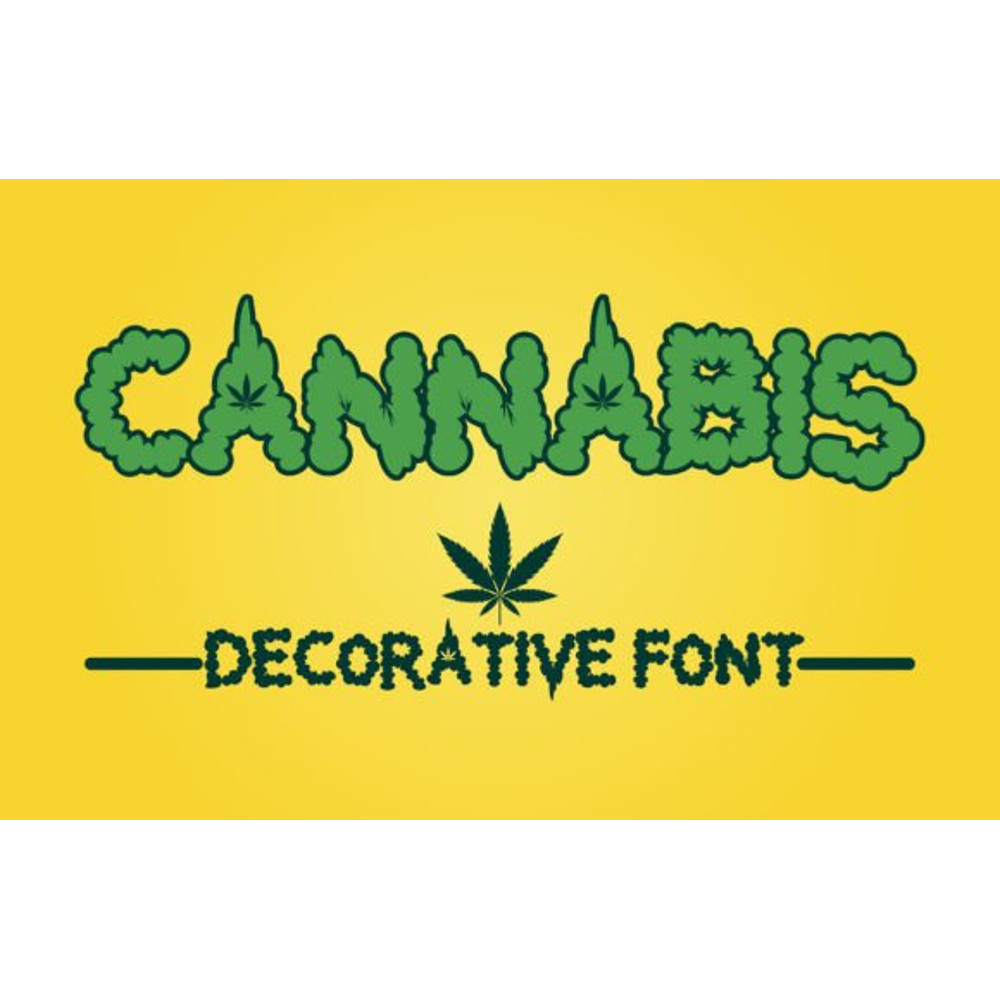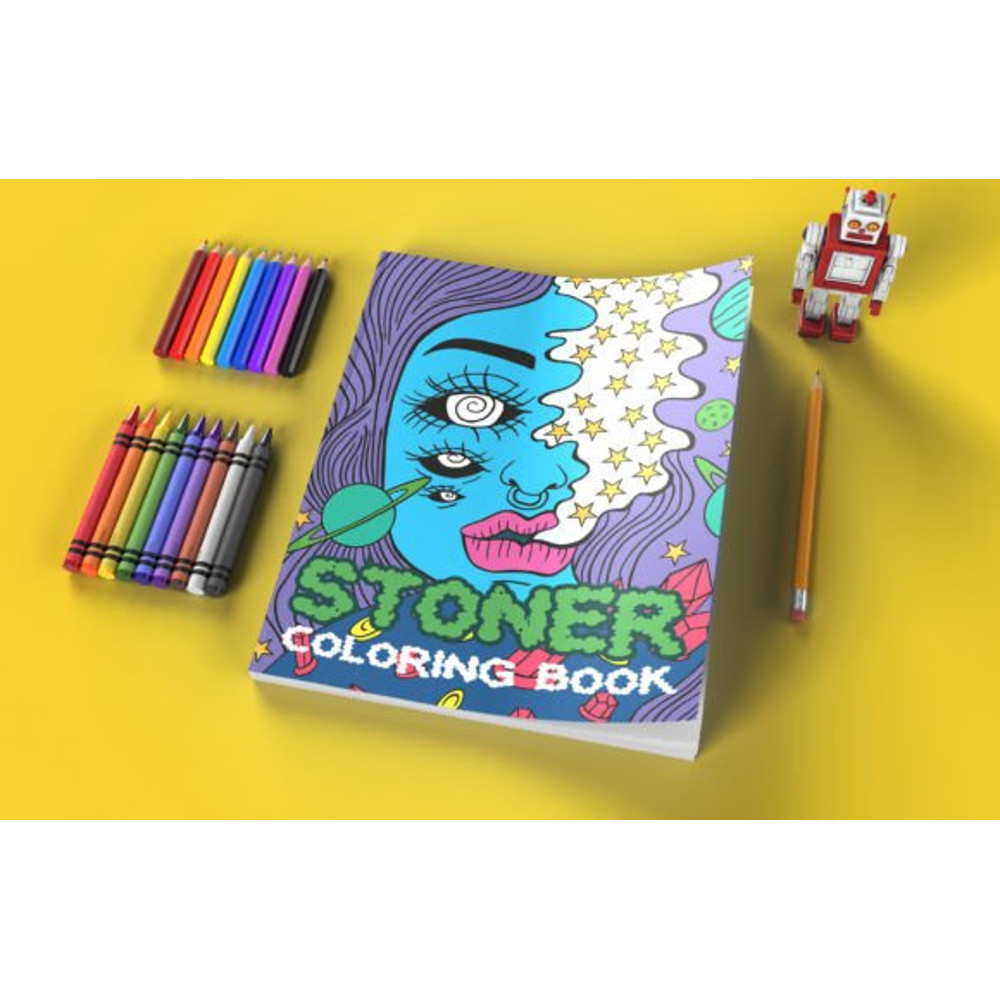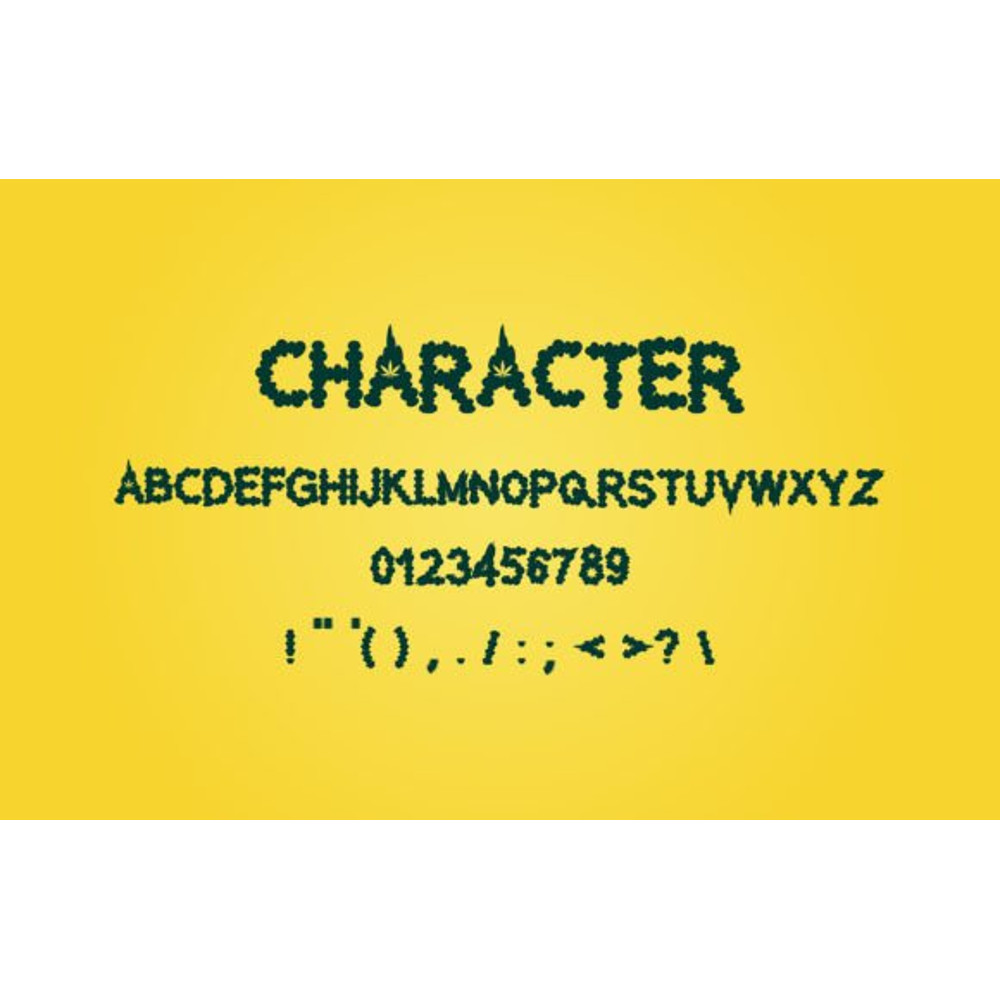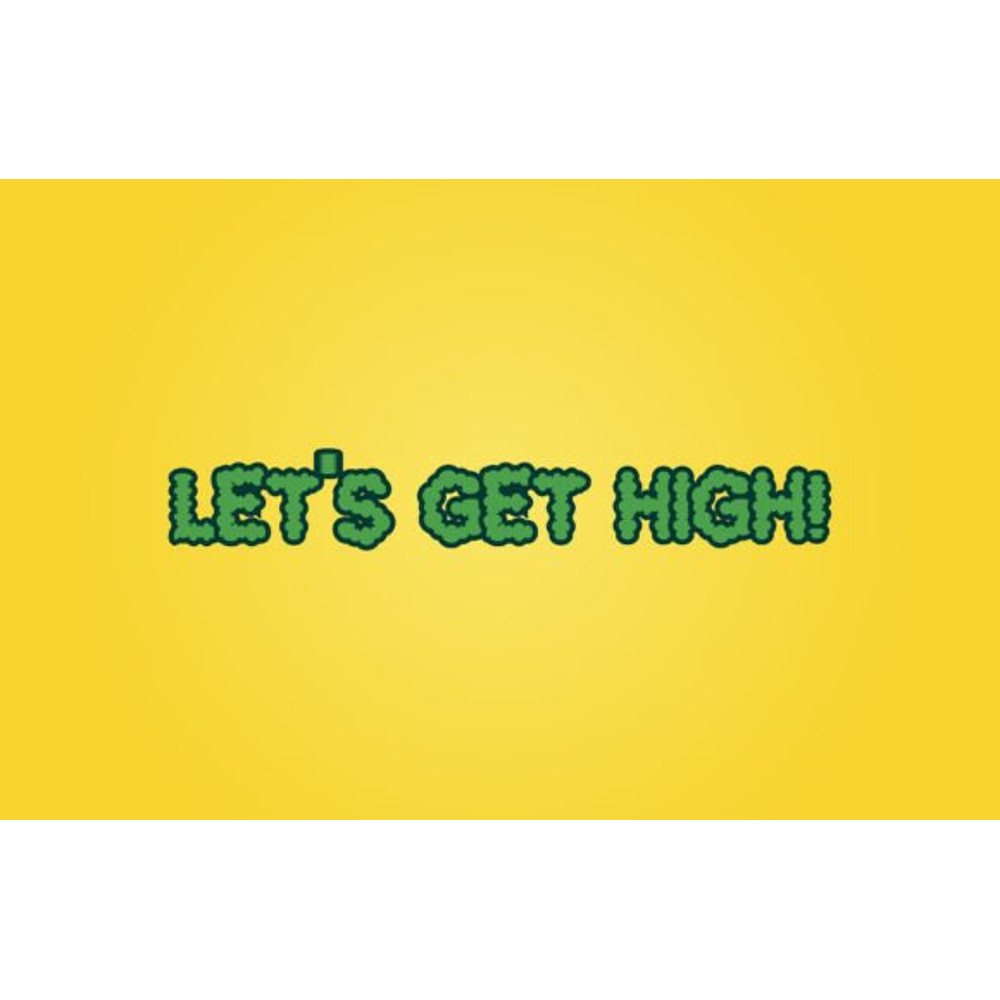
Cannabis Font
Cannabis is a decorative font featuring cannabis leaves. This cool font is perfect for trippy-themed designs, weed coloring book covers, or anything that needs a fun accent.